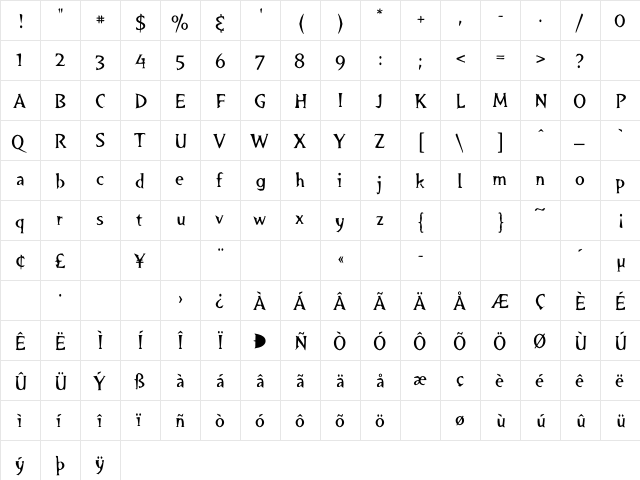
Nightmare in Blend Mode Regular
Design Context for Nightmare in Blend Mode Typeface
Nightmare in Blend Mode is a composed and adaptable typeface that performs quietly and consistently across a wide range of design contexts.
Pro Tip: Use Nightmare in Blend Mode in both headline and body roles to test its range before committing to a single application.